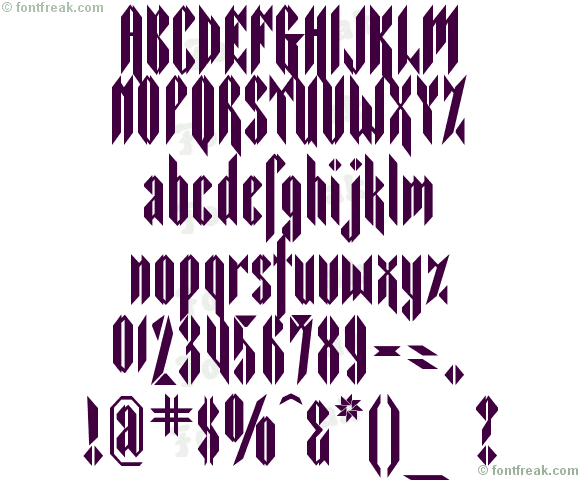
Sarcophagus2
Sarcophagus2, designed by Bolt Cutter, is a striking display font that captures attention with its unique visual style. This decorative typeface showcases a bold, angular aesthetic that combines a sense of ancient history with contemporary flair. The stroke weight varies dramatically, lending a sense of energy and dynamism to each character. With its sharp edges and distinctive geometric forms, Sarcophagus2 stands out in any design context. The spacing between letters is carefully crafted to ensure readability while maintaining a strong visual impact.
This font is particularly well-suited for a variety of creative projects. It can elevate the design of movie posters, especially those in the fantasy or horror genres, by adding a dramatic touch that intrigues viewers. Additionally, Sarcophagus2 works wonderfully for branding small businesses, particularly those in niche markets like vintage clothing stores or artisanal craft shops. Graphic designers may find it perfect for event flyers or promotional materials that require a bold statement, while content creators can use it for eye-catching titles in videos or social media graphics.
What sets the Sarcophagus2 font apart is its ability to blend historical influences with modern design principles. Its intriguing character forms not only capture the essence of ancient structures but also resonate with contemporary aesthetics, making it a versatile choice for anyone seeking to make a memorable visual statement. For those interested, a Sarcophagus2 font free download is available, allowing you to incorporate this unique typeface into your next project effortlessly.